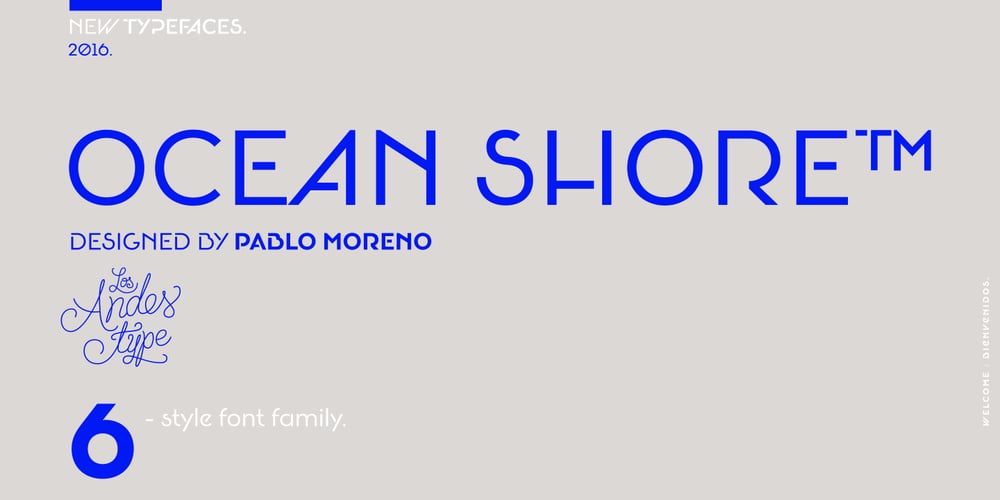
Oceanshore Font Family was designed by Pablo Moreno and published by Los Andes. Oceanshore contains 6 styles and family package options. Oceanshore is a modern display sans typeface with stencil characteristics and based on geometric shapes. That when combined gives the font a retro-futuristic look and makes it ideal for big and catchy editorial headlines. The family includes 6 styles, from Thin to Bold, each of them in a wide variety of alternates and ligatures that provides the users with a number of choices when composing. Each font comprises more than 550 characters and supports over 200 Latin languages. Seashore is well-suited for headlines, short text, posters, flyers and so on.